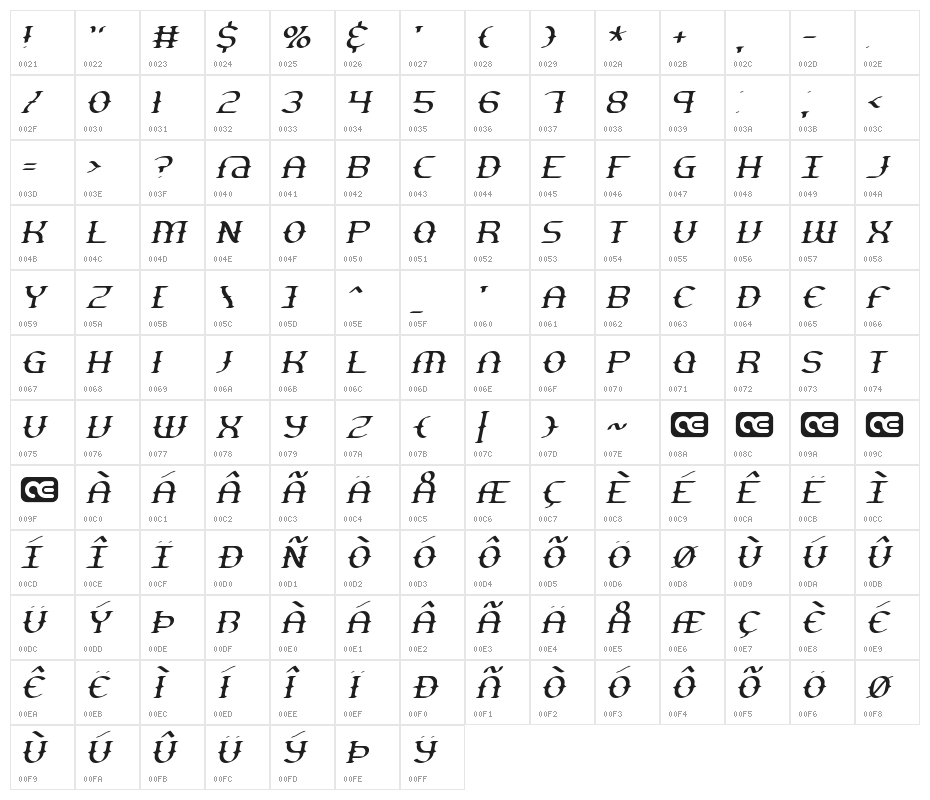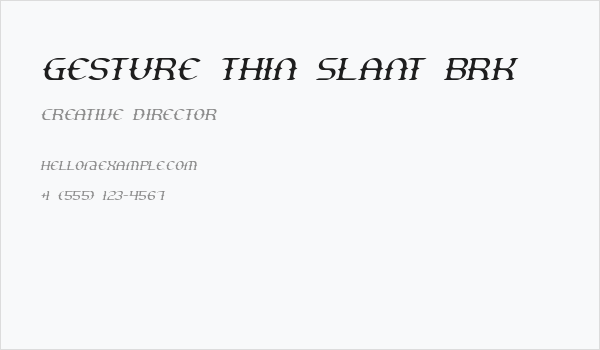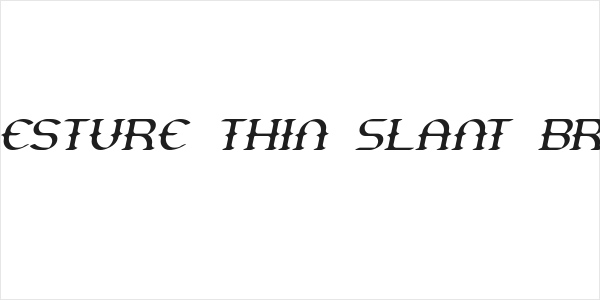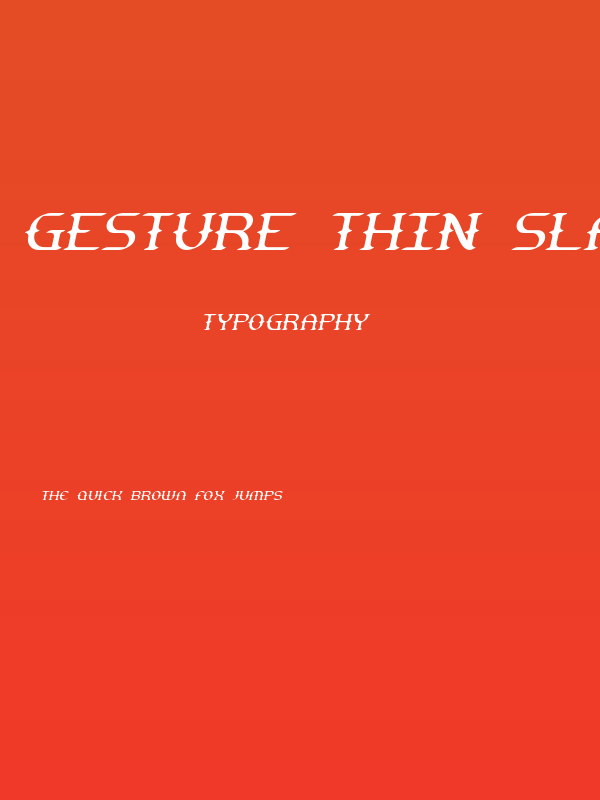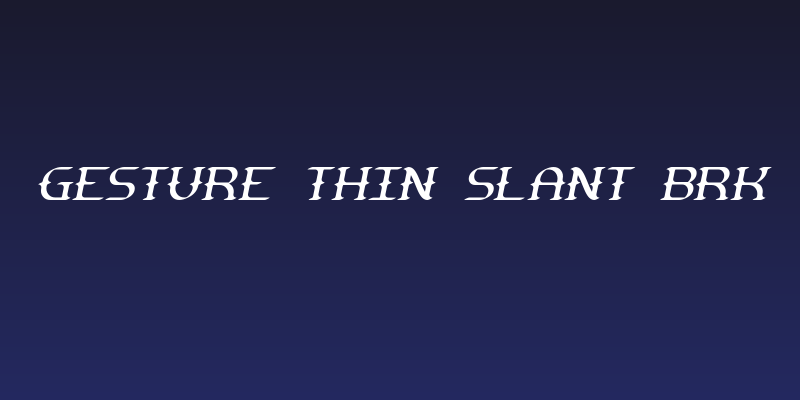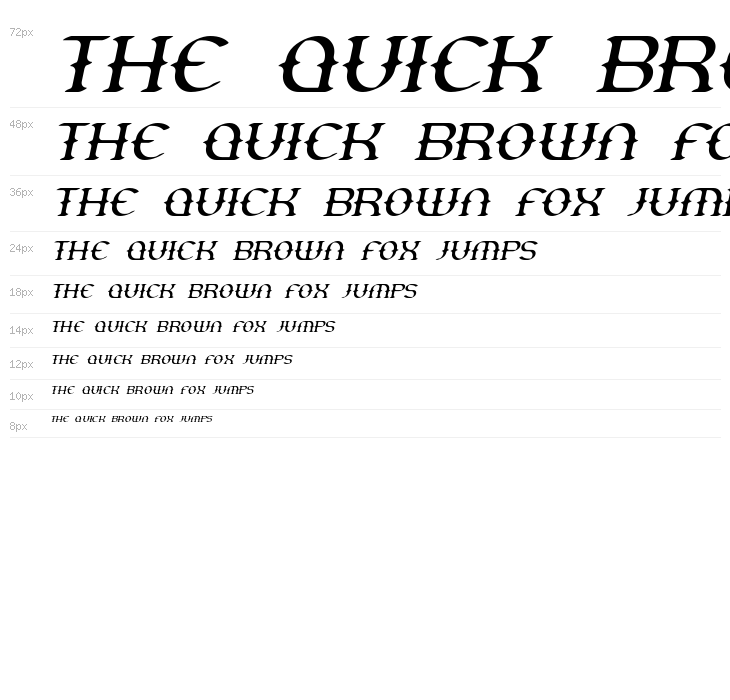
Gesture Thin Slant BRK Font
Gesture Thin Slant BRK Description
This font features a distinct slanted style with a thin, elegant appearance. The characters are designed with a slight italic slant, giving them a dynamic and forward-moving look. The strokes are thin, yet they maintain a consistent weight throughout, providing a sleek and modern feel. The uppercase and lowercase letters are well-proportioned, with a unique flair in the curves and terminals. The numbers and special characters follow the same stylistic cues, ensuring a cohesive look across all elements. This font's design is both decorative and functional, making it suitable for various creative applications.
| Proposed Projects | Ideal for branding, posters, and creative design projects that require a modern and stylish touch. |